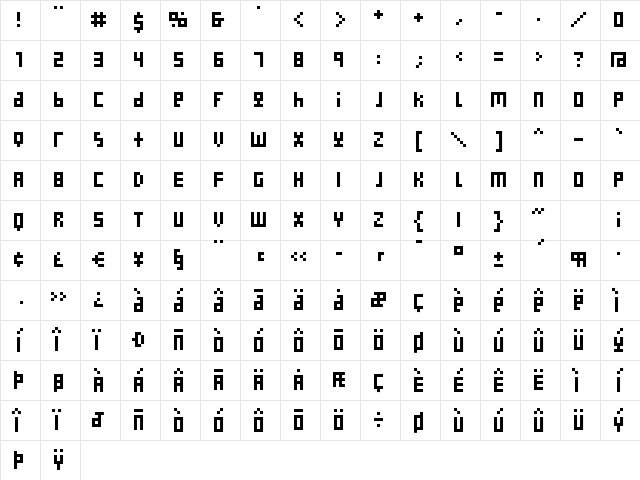
Nanoscopics is a composed and adaptable typeface that performs quietly and consistently across a wide range of design contexts.
Who designed the Nanoscopics Regular font?